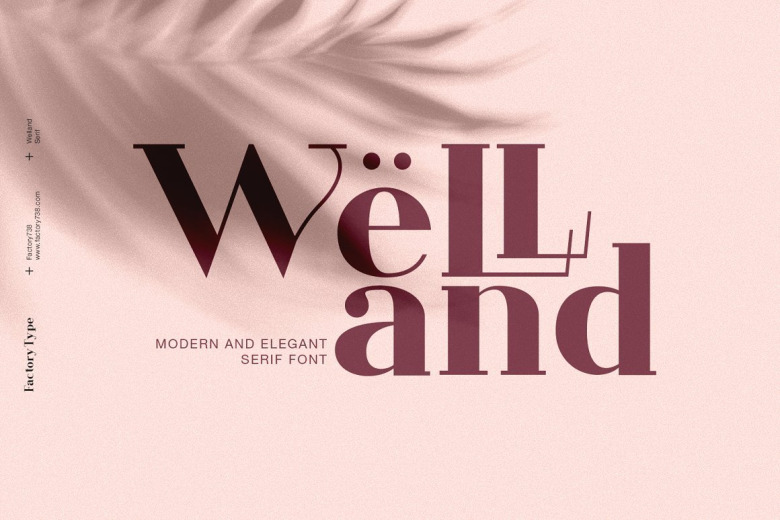
Welland Font
Welland Font is a neo-humanist serif that takes inspiration from some calligraphy and blackletter letterforms providing sharp details and a little stiffness in some parts of the typeface. The combination of modern and vintage elements renders an elegant design.
The variety of weights provide a range of choices that will help you find the best typographic colour for your project. Lighter weights are well-suited for body text while heavier ones are ideal for high impact headlines. The available stylistic Ligature and Alternate offer a number of different characters that give your project design or logo a unique look.